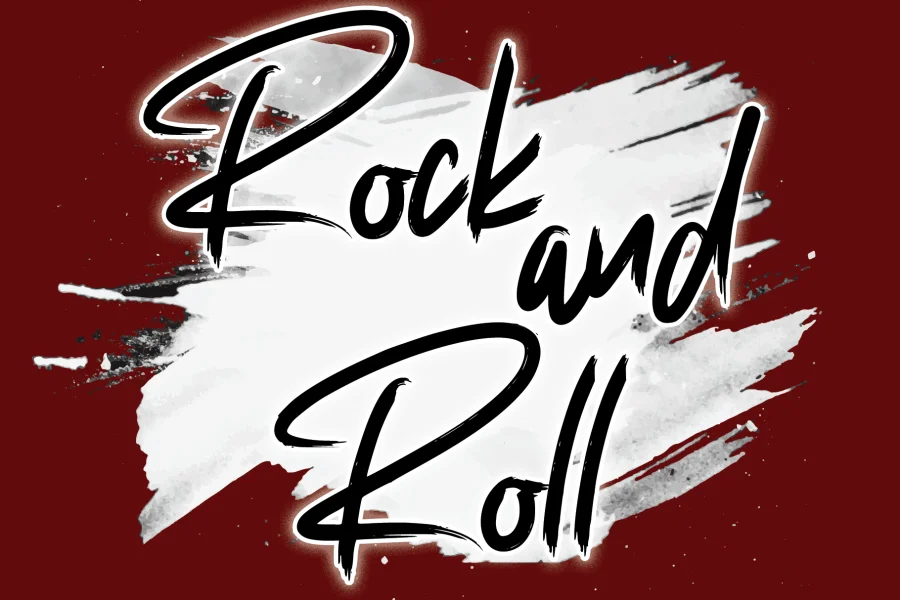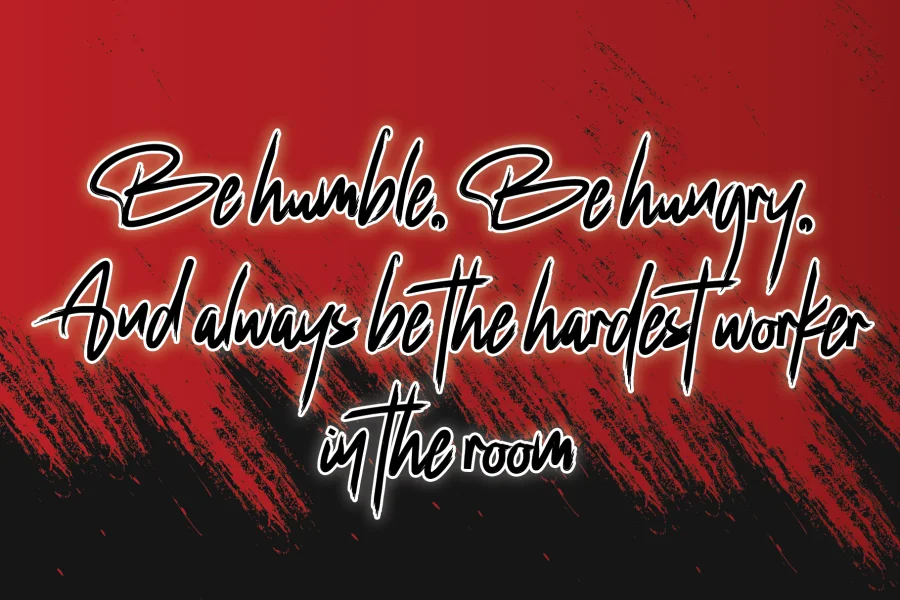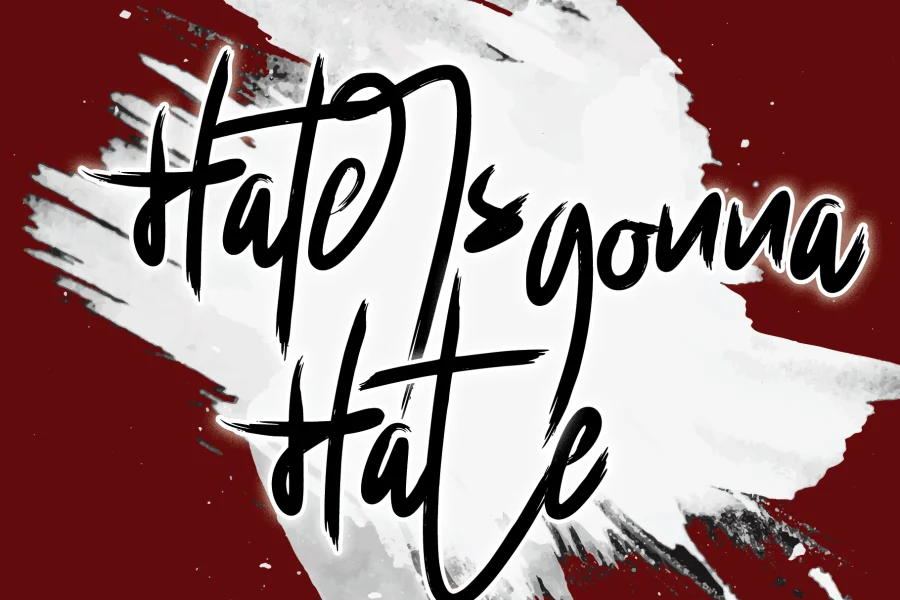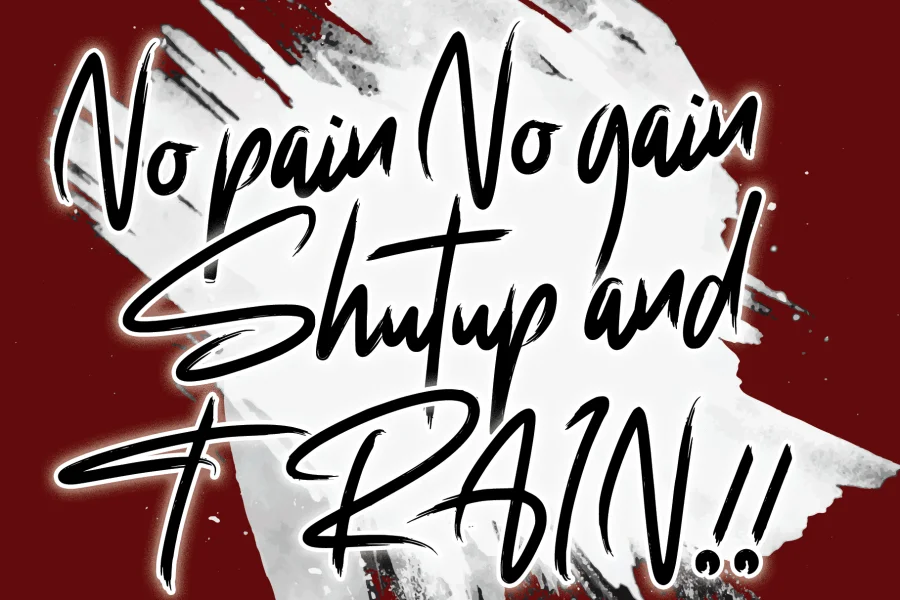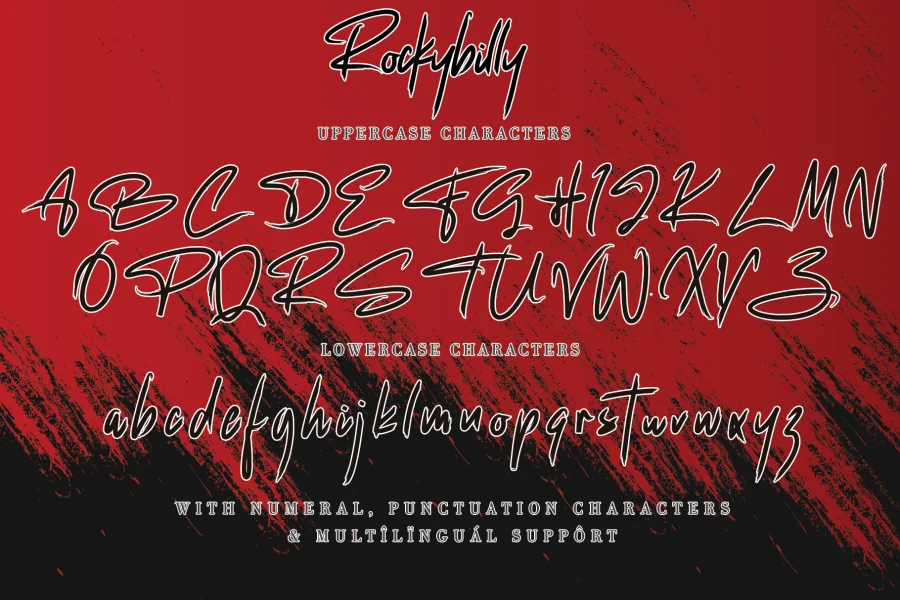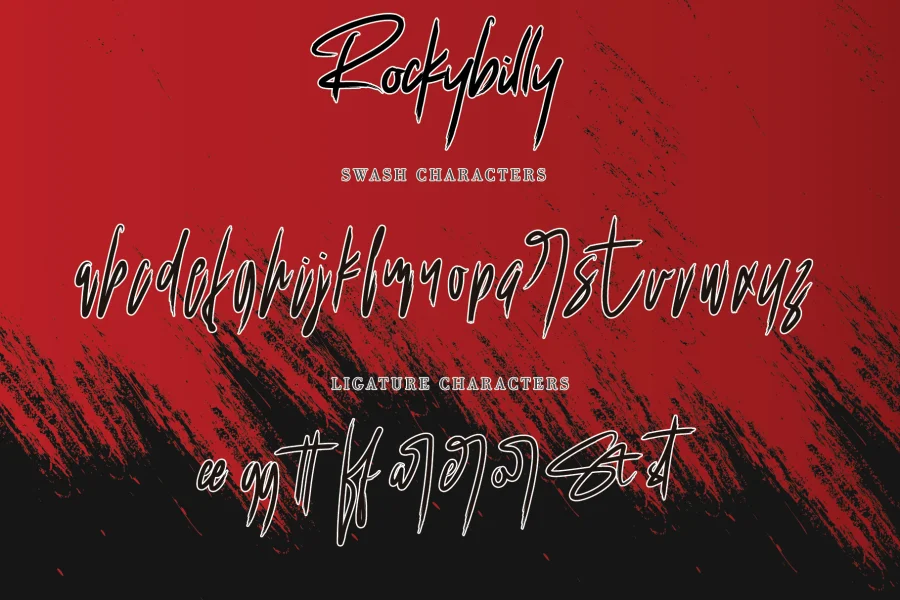
Rockybilly font is an electrifying brush font that exudes vibrancy and dynamism. With its bold and expressive strokes, it captures the essence of spontaneity and liveliness. Every letter is meticulously crafted with an emphasis on swift brush strokes and intricate details, resulting in a font that truly stands out. Whether you’re looking to add a touch of edginess or inject a burst of energy into your designs, this font is your go-to choice. Let your creativity run wild with Brushed Energy and witness your designs come to life with its captivating charm and irresistible energy.